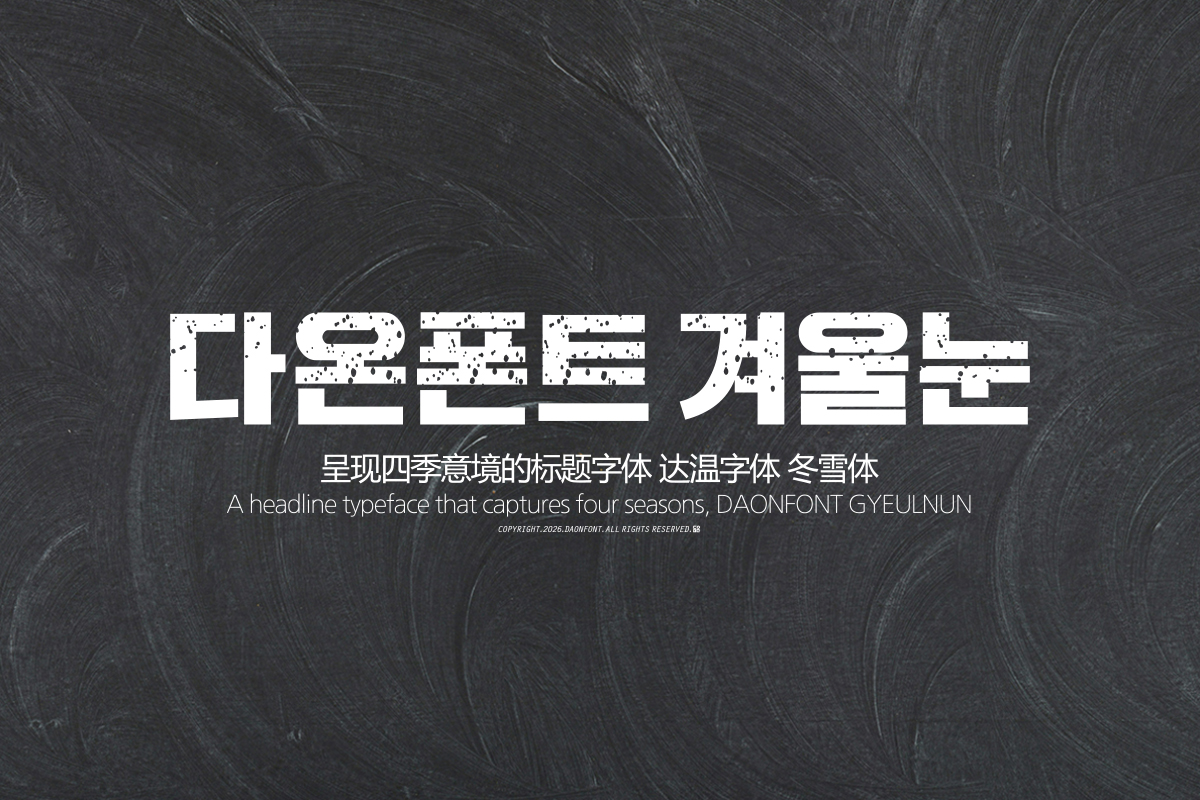
DAON SAGYE GYEOUL
DaonFont 'SAGYE GYEOUL' is a Hangul typeface designed for display that expresses the effect of white snow settling softly upon the characters. By adding natural ink bleeding to the tops of each character, this typeface captures the feeling of large snowflakes falling in winter and piling up neatly on the letters.